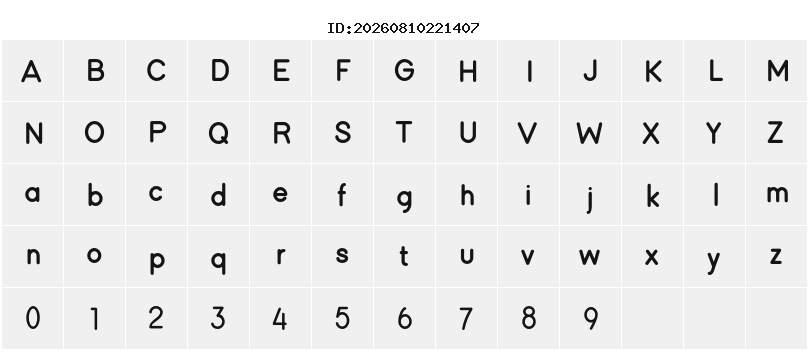
About roung.otf
roung.otf is a modern, elegant sans-serif font designed for ultimate readability and visual harmony. Perfect for branding, headlines, web design, and print materials.